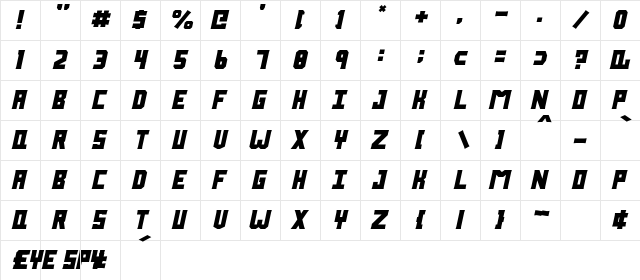
Eye Spy Italic Font Preview
Eye Spy Italic
Eye Spy Italic Font Details
Design Context for Eye Spy Typeface
Eye Spy is a composed and adaptable typeface that performs quietly and consistently across a wide range of design contexts. The dynamic lean of this cut emphasises speed and emphasis in any layout.
Pro Tip: Try Eye Spy for annotation and caption copy alongside an upright companion — the contrast in angle creates a dynamic but ordered typographic system.